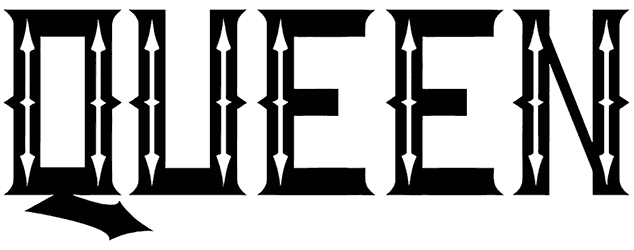
Queen Font
Queen, a font that is as notable as its name, and can give your project a unique design. This gothic font with modern broken letterforms and at the same time, a historical mood will give your design a dual vibe. With no designed lowercase, Queen can still garnish any text, such as logos, flyers, textiles, backgrounds, and many more.